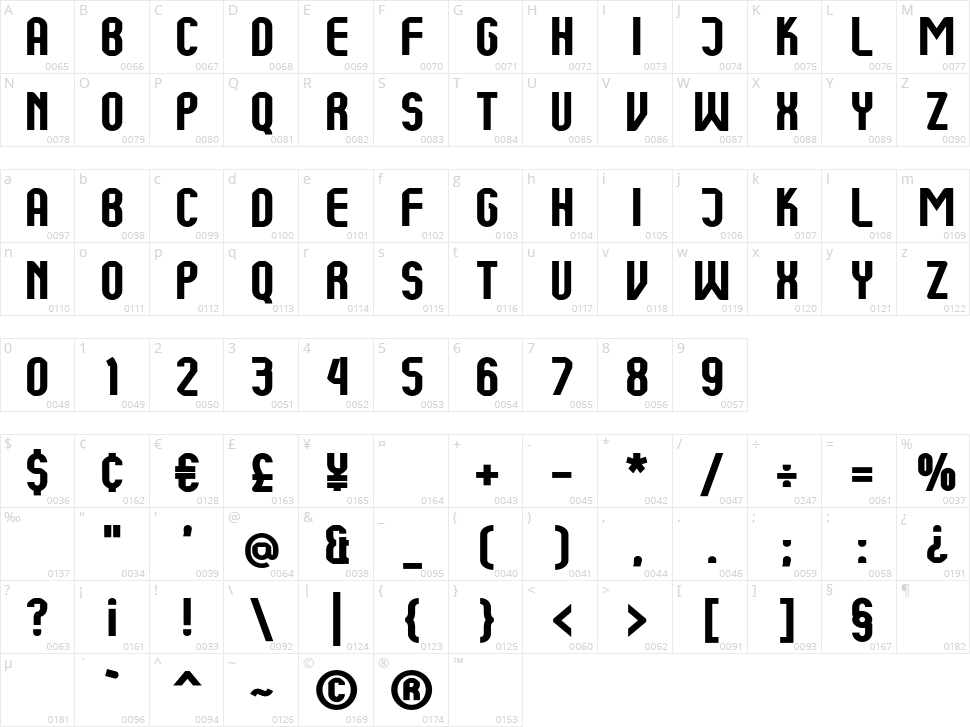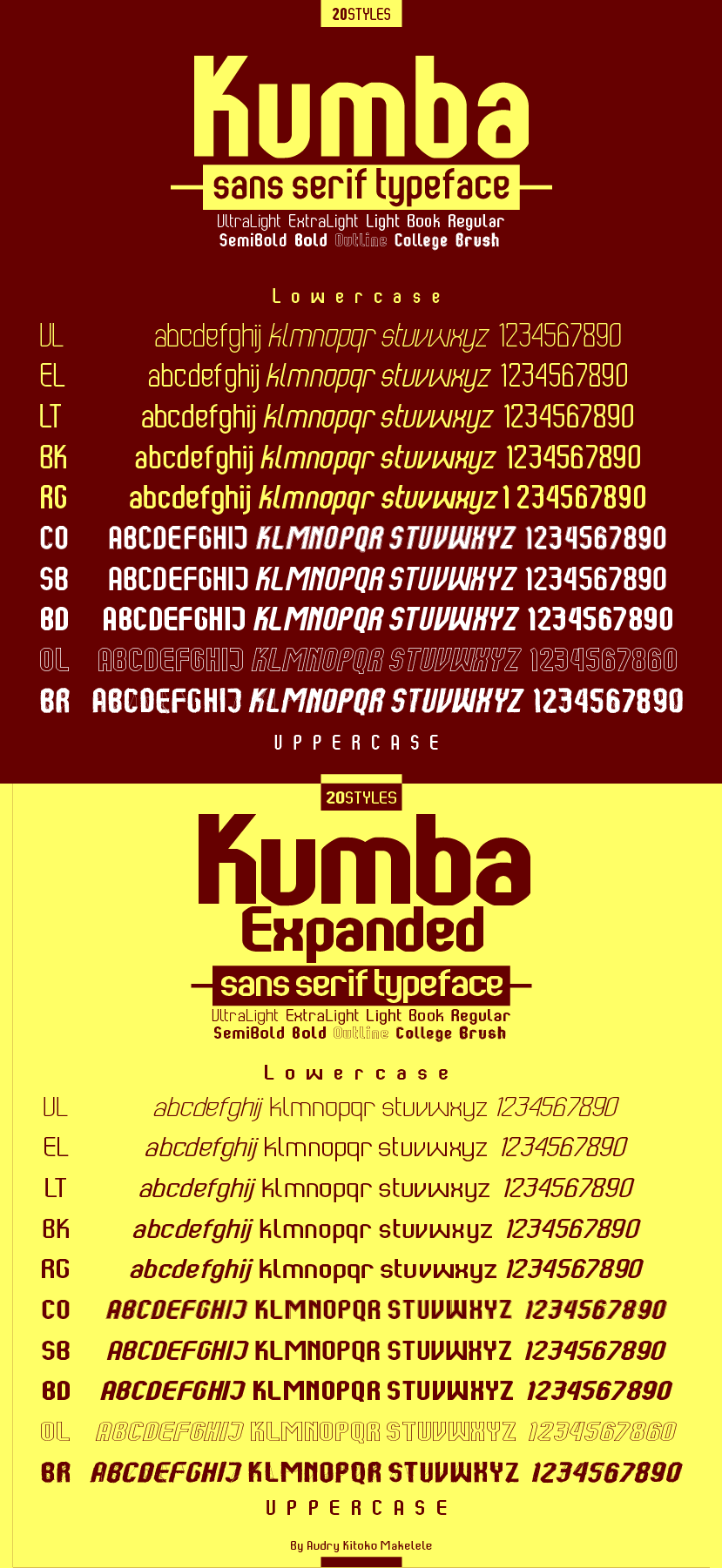
Kumba
Kumba is inspired by classic typography and brings its own unique style to any design project. This fantastic sans serif font is best suited for headlines of all sizes, as well as for blocks of text that have both maximum and minimum variations. Whether its for web, print, moving images or anything else Kumba will look spectacular.
Kumba Expanded is a great sans serif font. Whether youre looking for fonts for Instagram or calligraphy scripts for DIY projects, Kumba Expanded will turn any creative idea into a true piece of art!